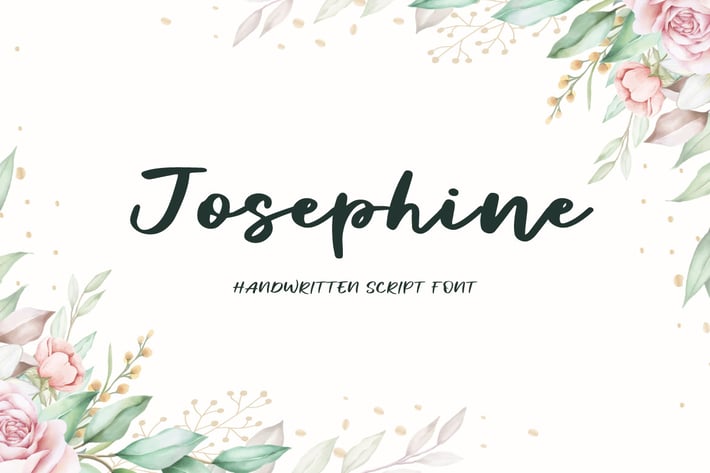
Josephine - Classy Luxury Handwritten Script Font
Hello! Josephine is a handwritten script font.
Josephine can be used in any works such as wedding invitation, book title, magazine logo and many more.